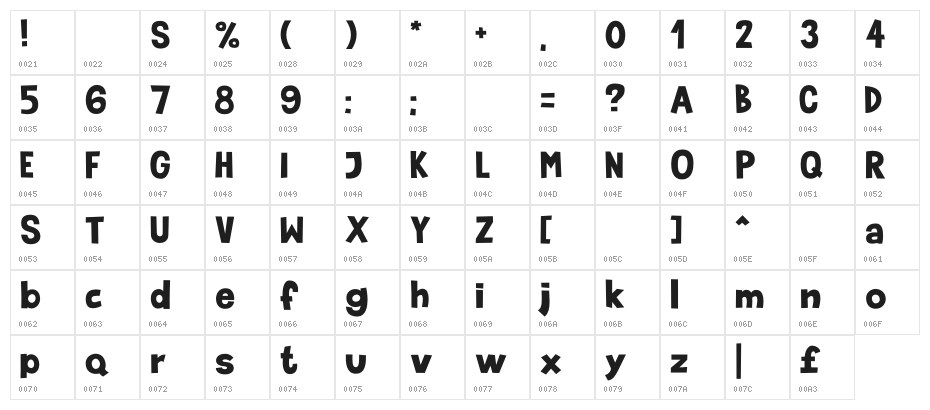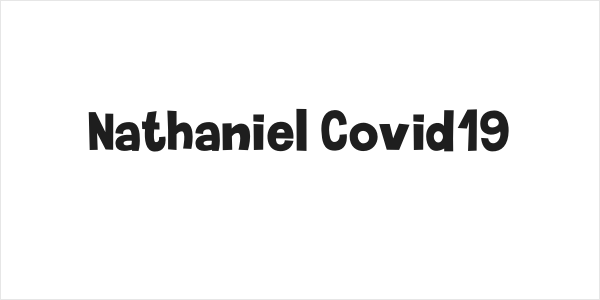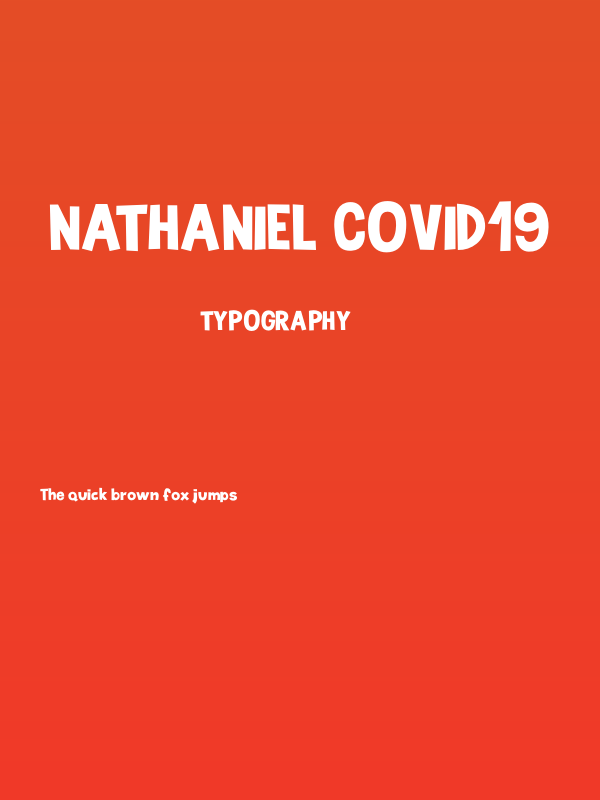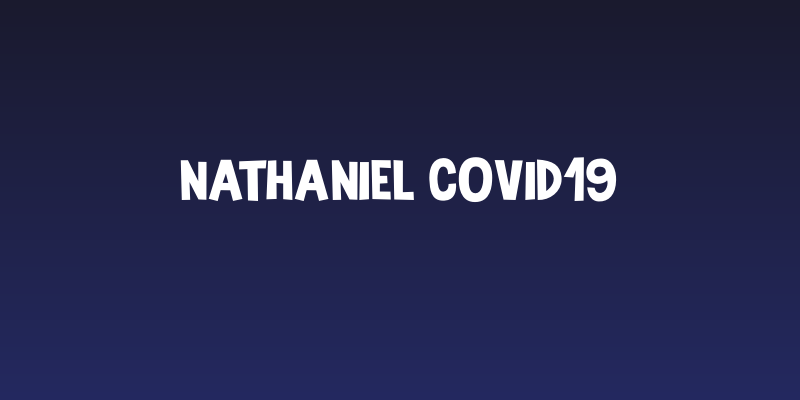
Nathaniel Covid-19 Font
Nathaniel Covid-19 Description
This font features bold, playful characters with a distinct, hand-drawn appearance. The uppercase and lowercase letters are slightly irregular, adding to its whimsical charm. The numbers and special characters maintain the same boldness and playful style, making it suitable for creative and informal designs. The strokes are thick and consistent, giving a strong presence on the page. The overall look is casual and friendly, perfect for projects that require a touch of personality and approachability.
| Overall Style | Playful, Casual |
| Proposed Projects | Ideal for children's books, playful branding, posters, and social media graphics. |